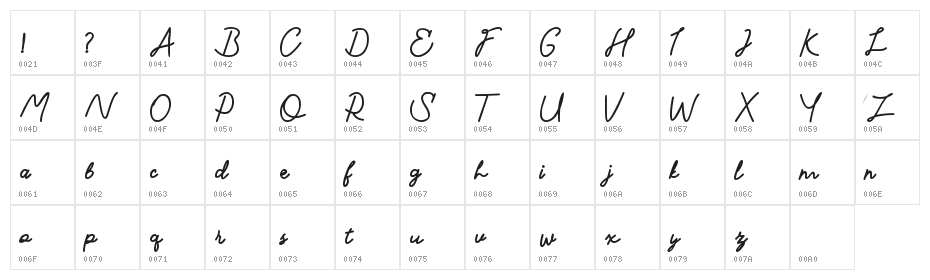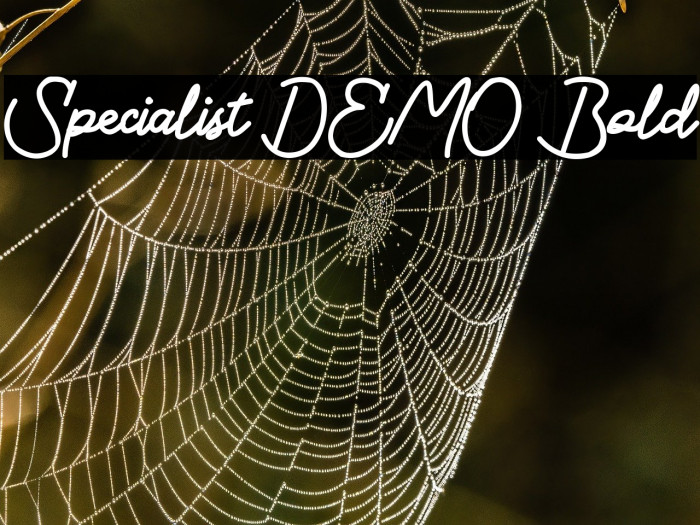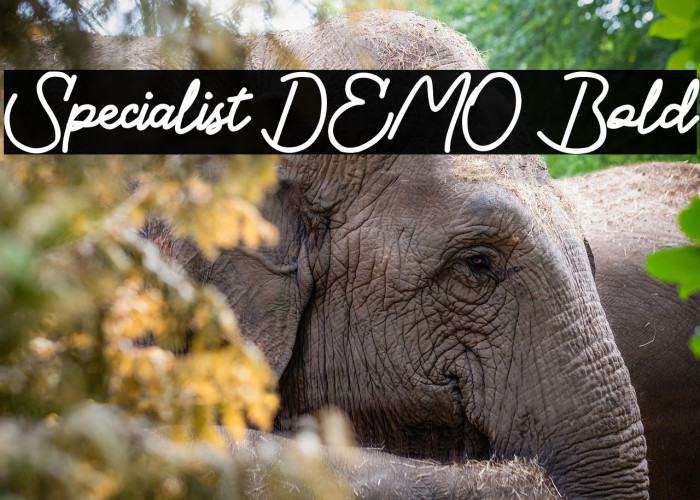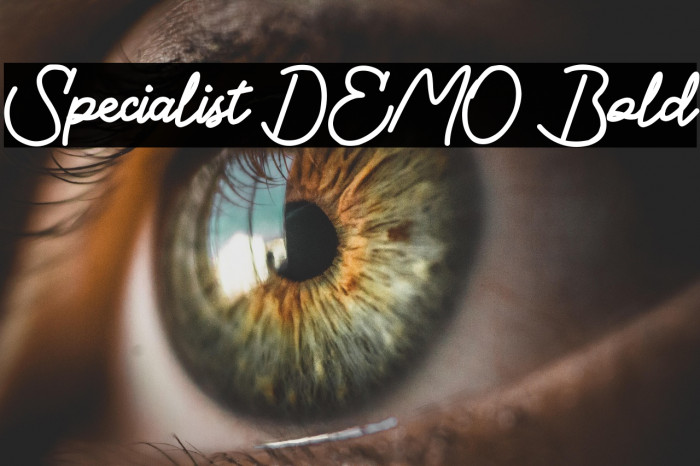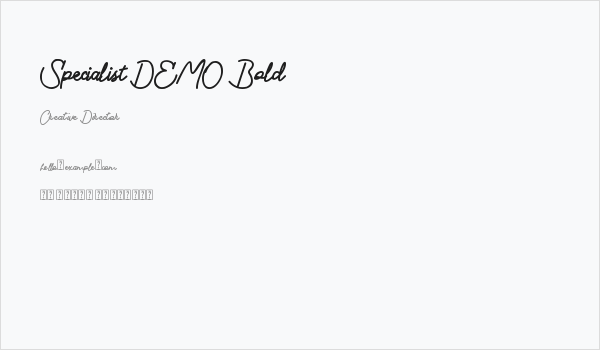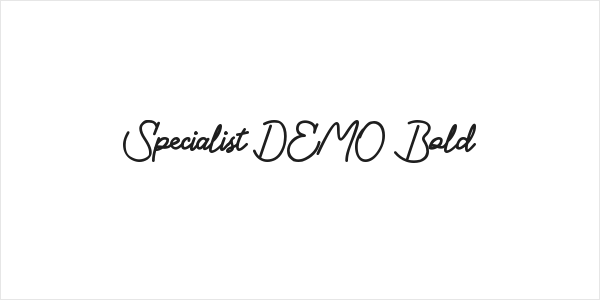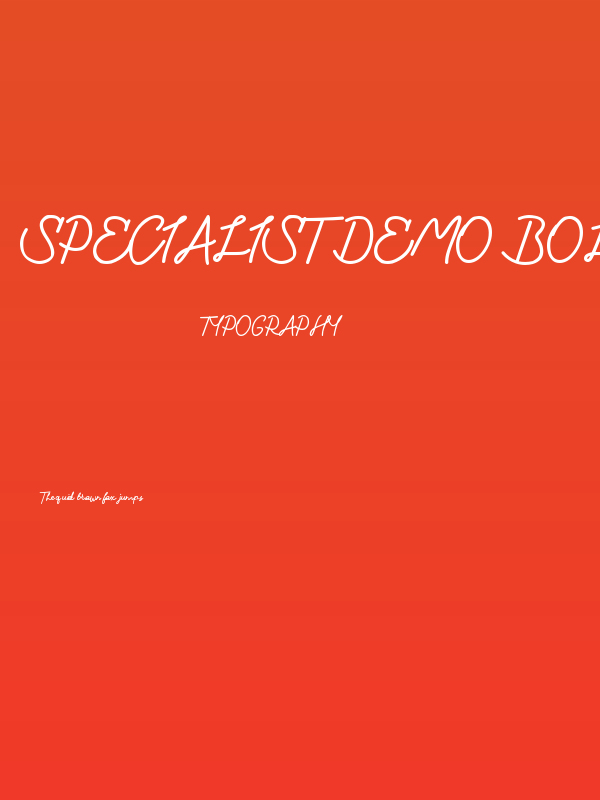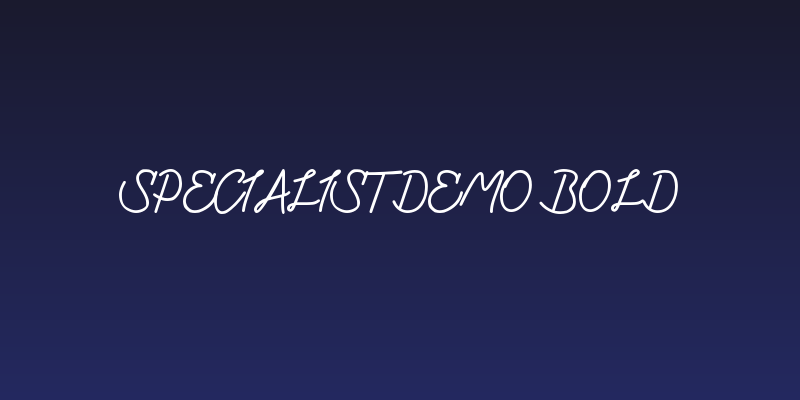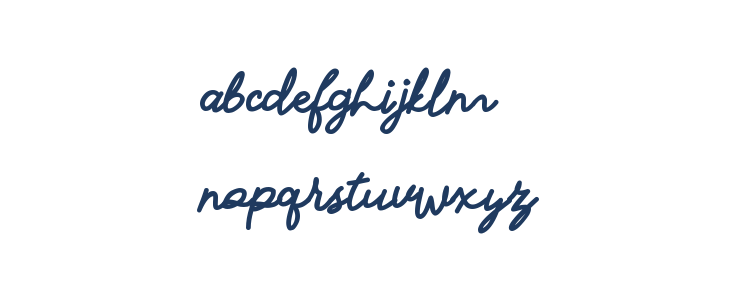
Specialist DEMO Bold Font
Specialist DEMO Bold Description
This font exudes a lively and dynamic handwritten style, characterized by its fluid and continuous strokes. The letters are elegantly connected, giving it a cursive appearance that is both sophisticated and approachable. The uppercase letters maintain a consistent height, while the lowercase letters exhibit a playful bounce, adding to the font's charm. The overall design is smooth and flowing, making it ideal for conveying a personal touch. The characters are well-spaced, ensuring readability without sacrificing the aesthetic appeal. This font is perfect for projects that require a personal or artistic flair, such as invitations, greeting cards, or branding materials.
| Proposed Projects | Ideal for invitations, greeting cards, branding materials, and artistic projects. |